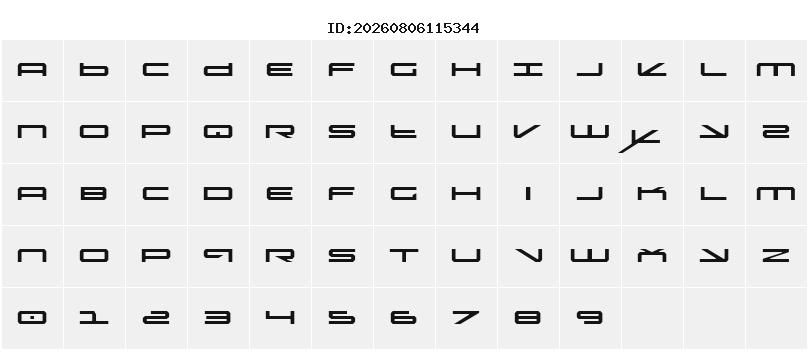
• Designer: Dan Zadorozny
About Oramac Light.ttf
Oramac Light.ttf is a modern, elegant sans-serif font designed for ultimate readability and visual harmony. Perfect for branding, headlines, web design, and print materials.